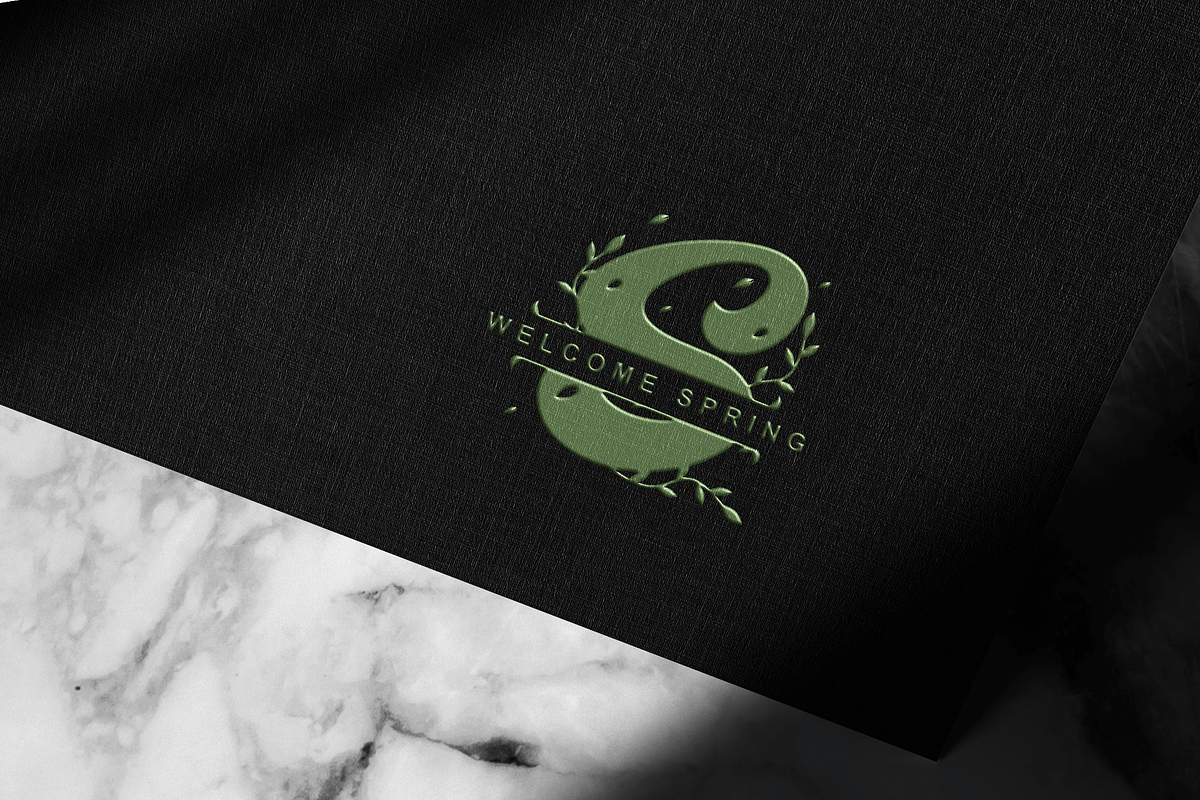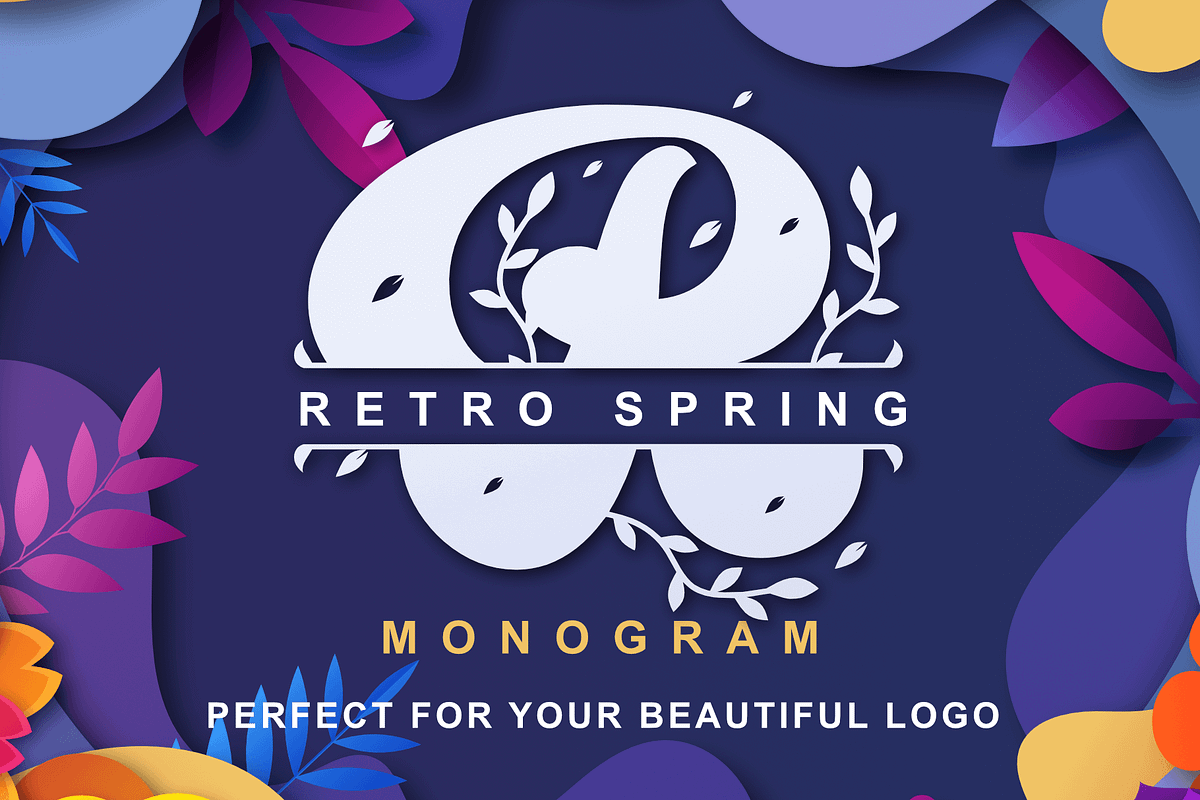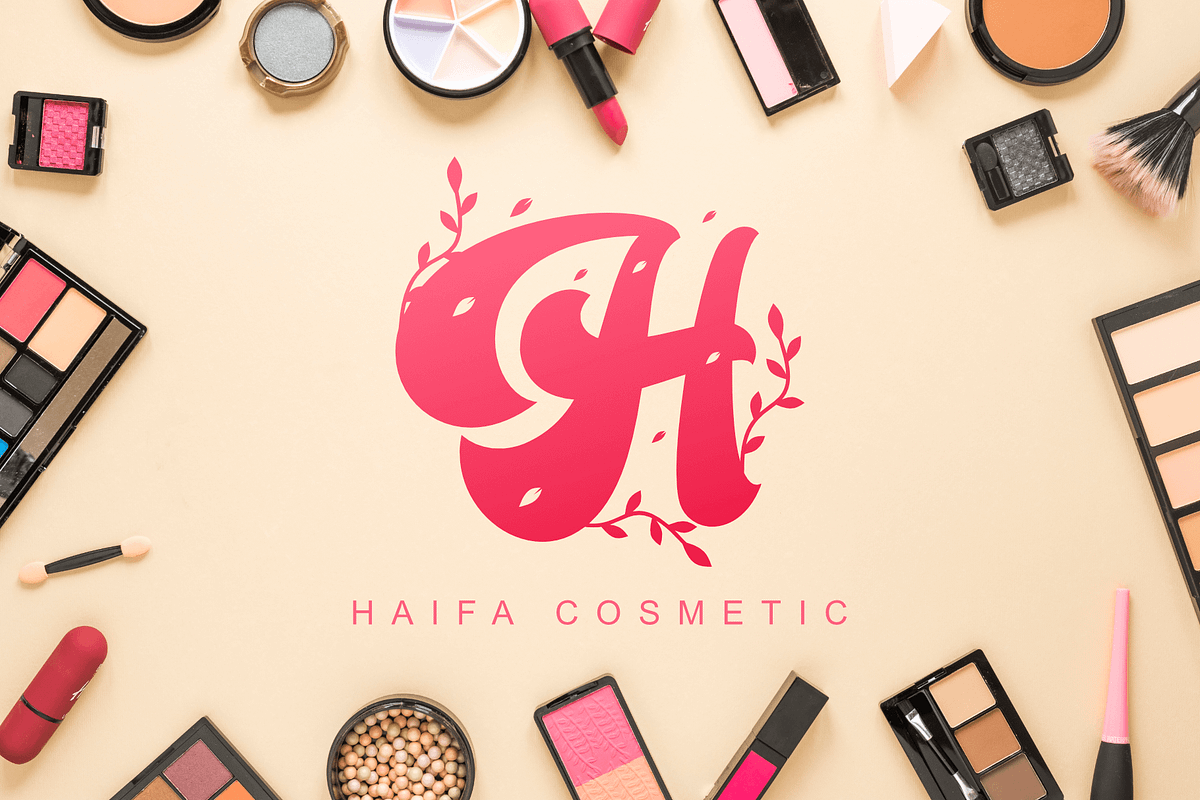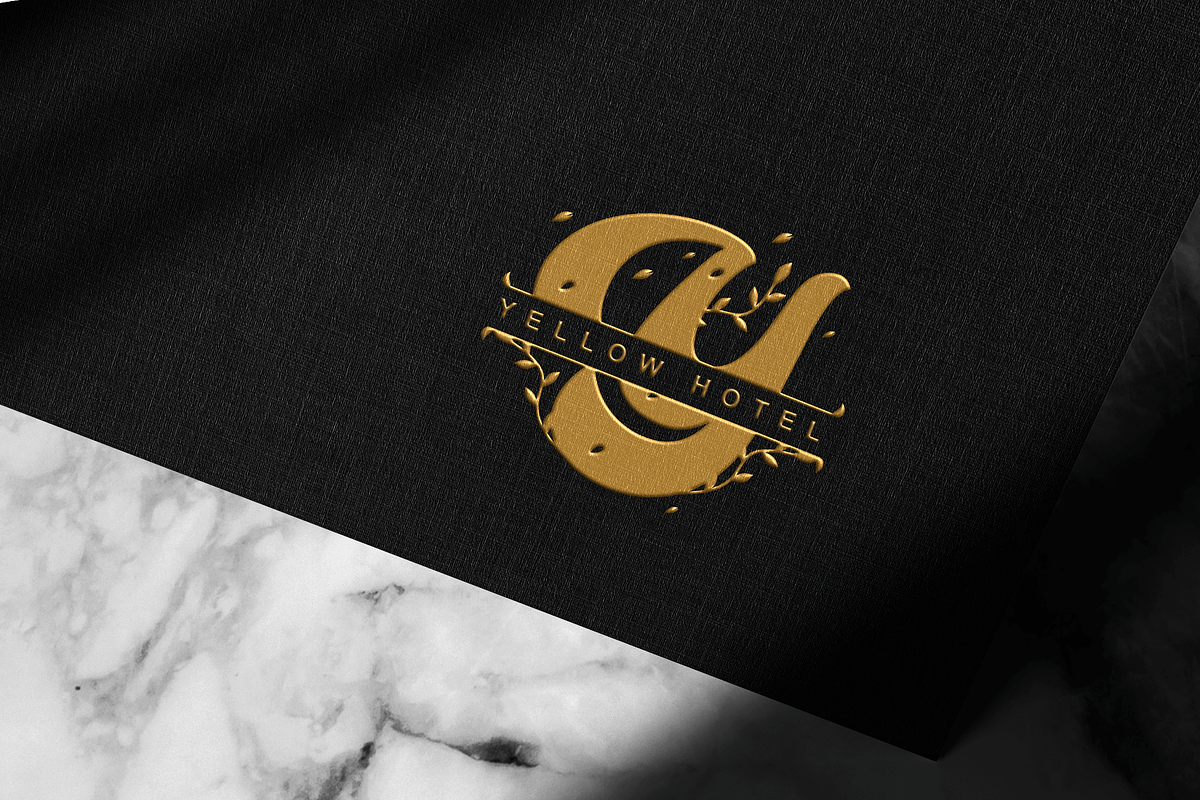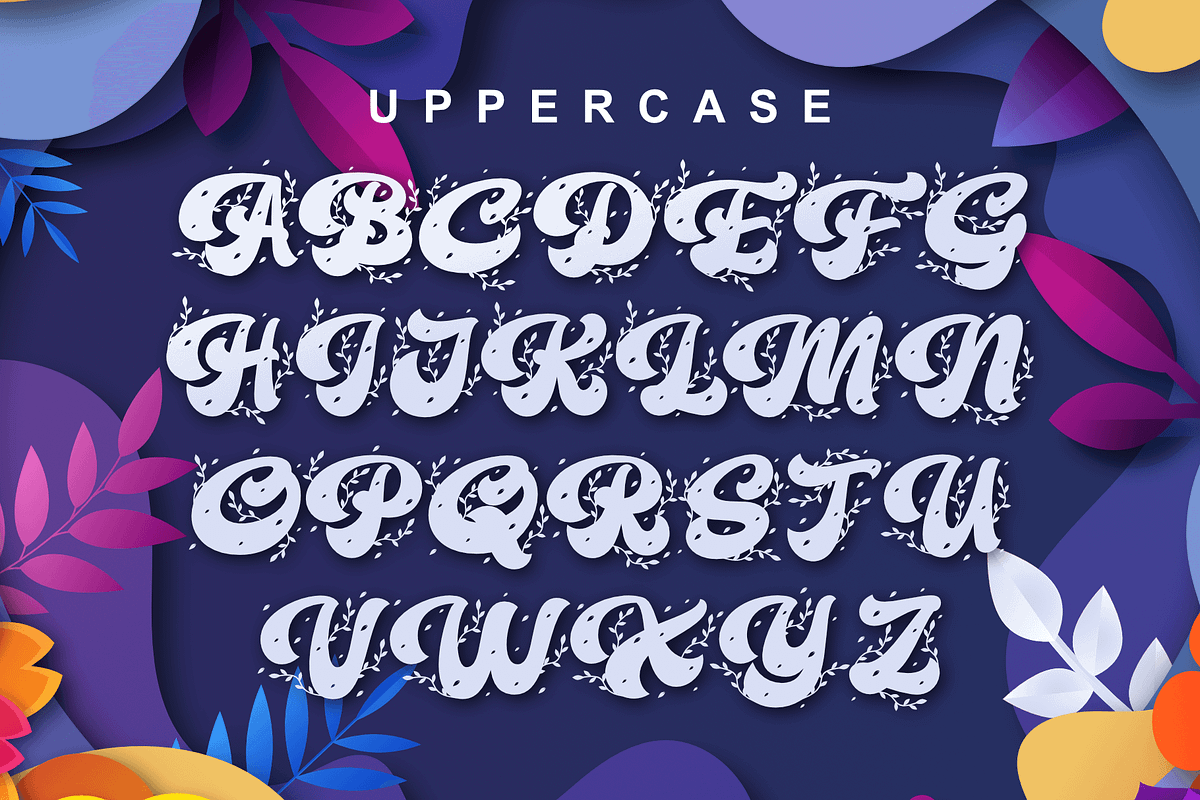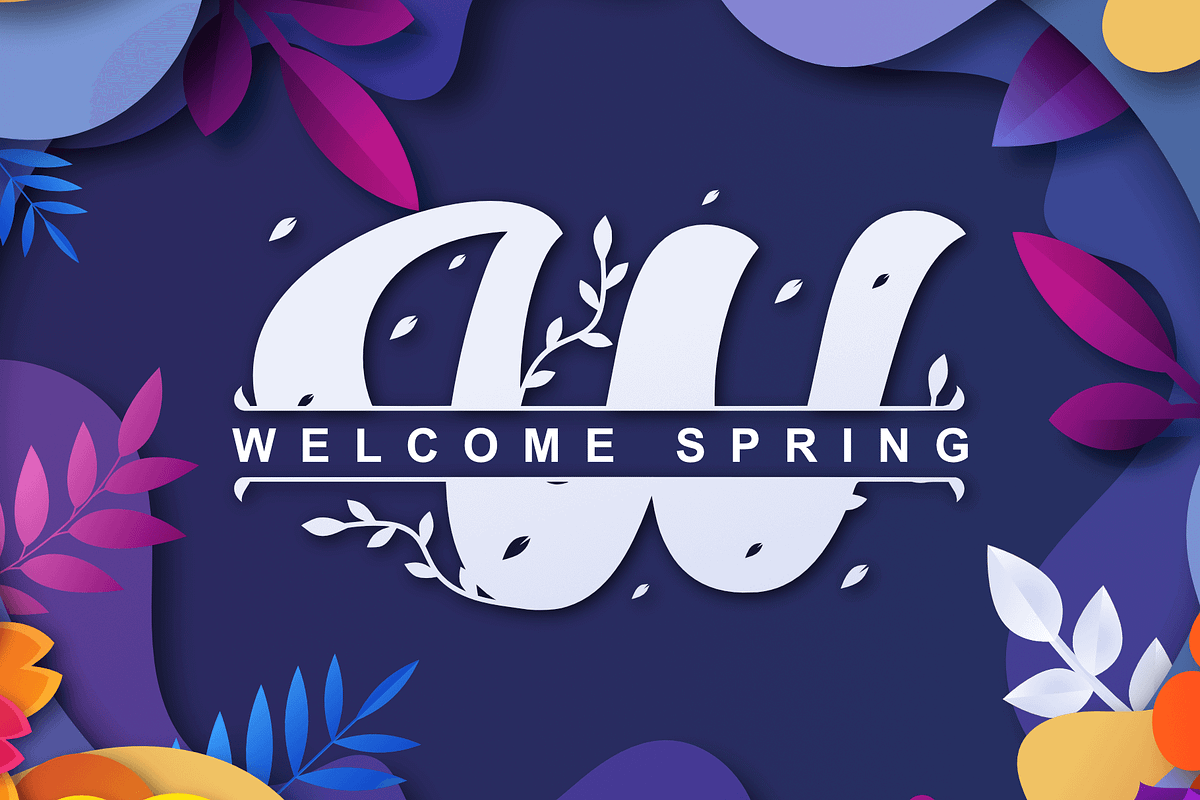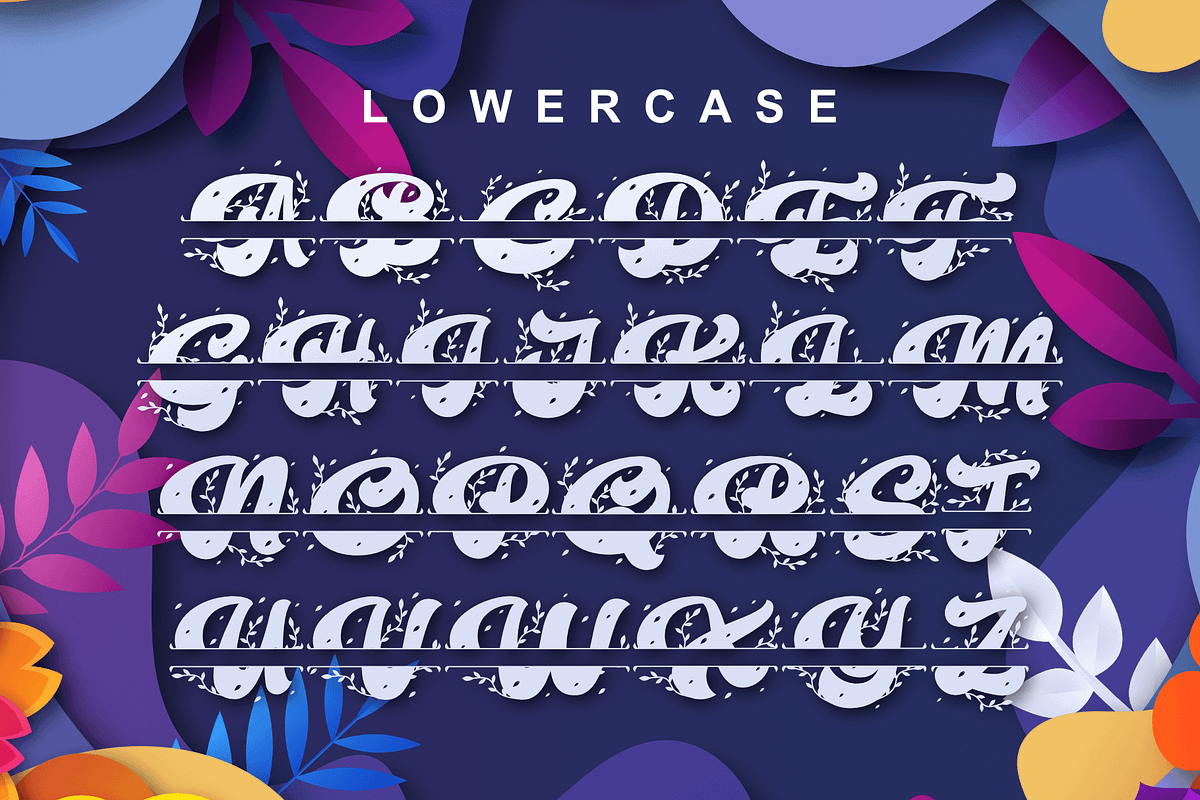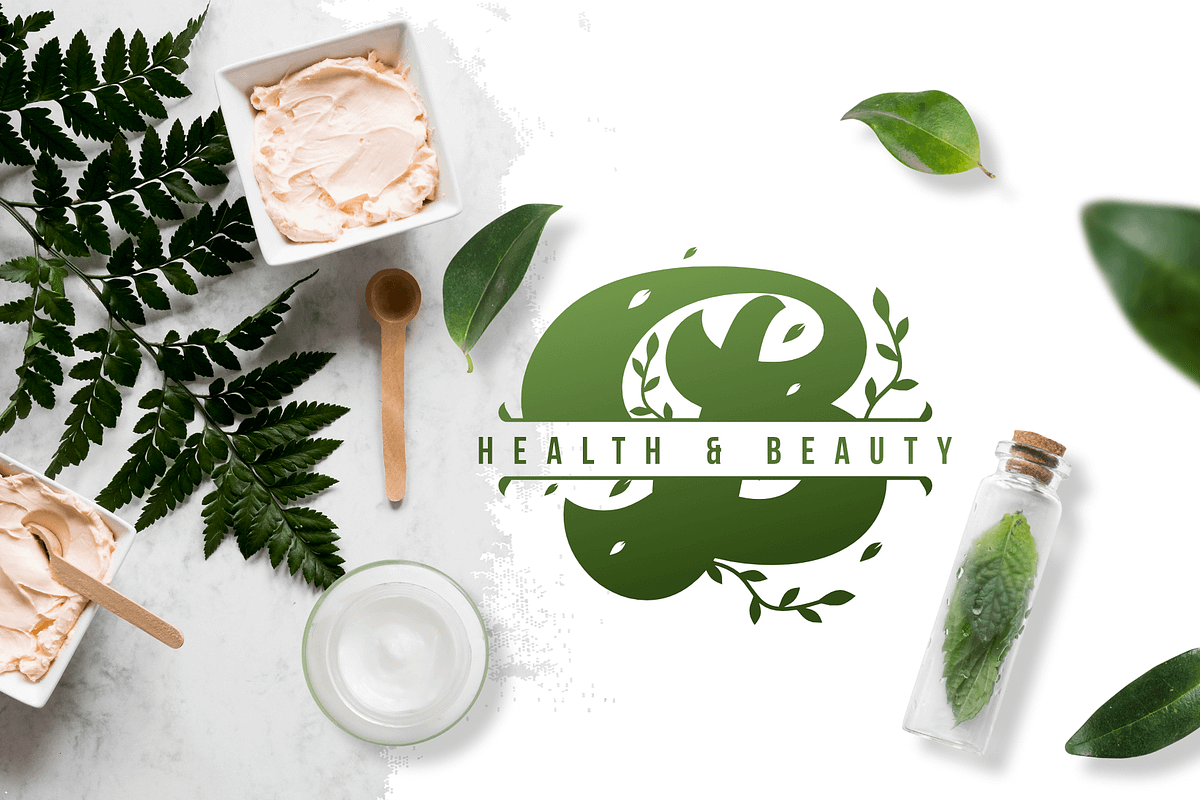
Retro Spring - Monogram
Retro Spring is a heartfelt monogram-type font with a gorgeous and dazzling concept that's ready to rock the world.
Retro Spring is perfect for making beauty logos, hotel logos, event logos, company branding logos, and other logos. create your project perfectly with the right font!